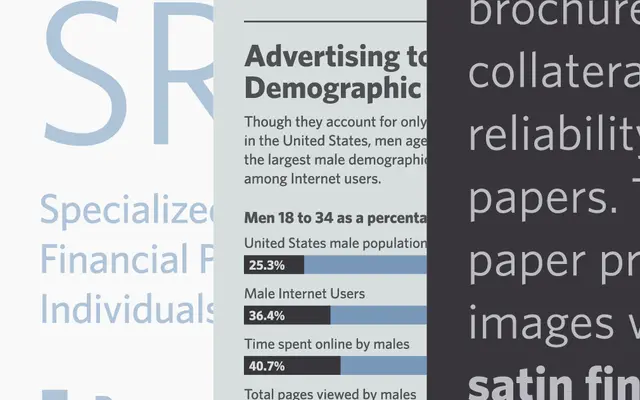
Whitney
Hoefler & Co · Tobias Frere-Jones · 2004
A humanist sans from Tobias Frere-Jones drawn for the Whitney Museum to handle both wayfinding and editorial setting in one family.
A humanist sans by Tobias Frere-Jones, originally drawn for the Whitney Museum to handle wayfinding and editorial running text inside the same identity. Six weights with matching italics, plus Narrow, Condensed and ScreenSmart cuts. Ends up in a lot of corporate, institutional and editorial systems that want a sans which is calm at text size but still legible on a sign.
H&Co classify Whitney as a humanist sans designed to bridge editorial and signage use, drawn for the Whitney Museum to perform both as wayfinding and as continuous text.